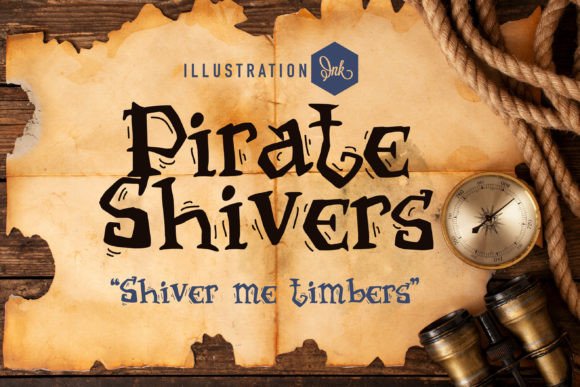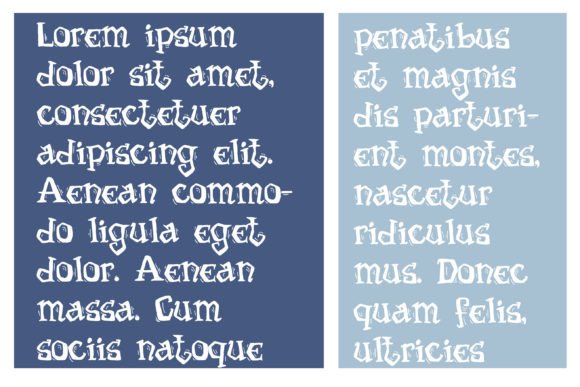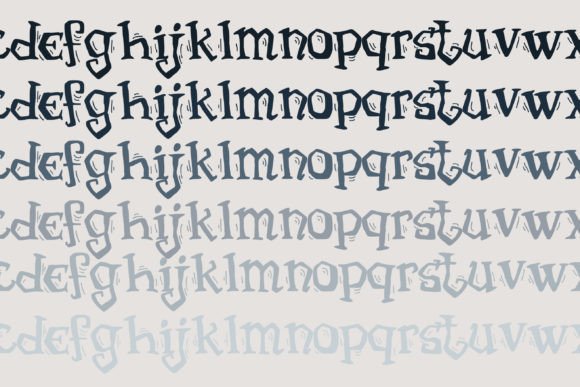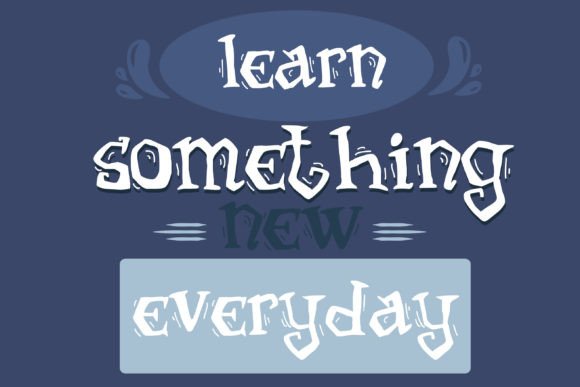
Pirate Shivers Font
About the Pirate Shivers Font
The Pirate Shivers Font is here to transform your projects with its distinctive character and style. This hand-crafted whimsical font has a pirate feel and “shivers” throughout.
Pirate Shivers is a fun, handmade font that looks like it’s from a pirate story. It has a playful pirate style and wavy, “shivery” lines that make it look unique and lively.
Pirate Shivers is ideally suited for headlines, short titles, logos, and packaging design where its playful energy can shine. It works exceptionally well in projects with a whimsical or adventurous theme, such as children’s books, pirate-themed products, or brands emphasizing fun and spontaneity. Avoid using it for body text or extended reading as its unique characteristics can hinder readability.
The font’s personality is undeniably playful and slightly rebellious. Its handcrafted feel adds a touch of authenticity, making it unsuitable for projects requiring a clean, modern aesthetic.
Pair Pirate Shivers with a clean sans-serif like Open Sans for contrast and readability in applications where both are used. For a more cohesive feel, consider pairing it with a simple serif font like Lora for supporting text, balancing its playful energy with a touch of classic elegance.
Pirate Shivers Font Usage Examples
Pirate Shivers Font Example